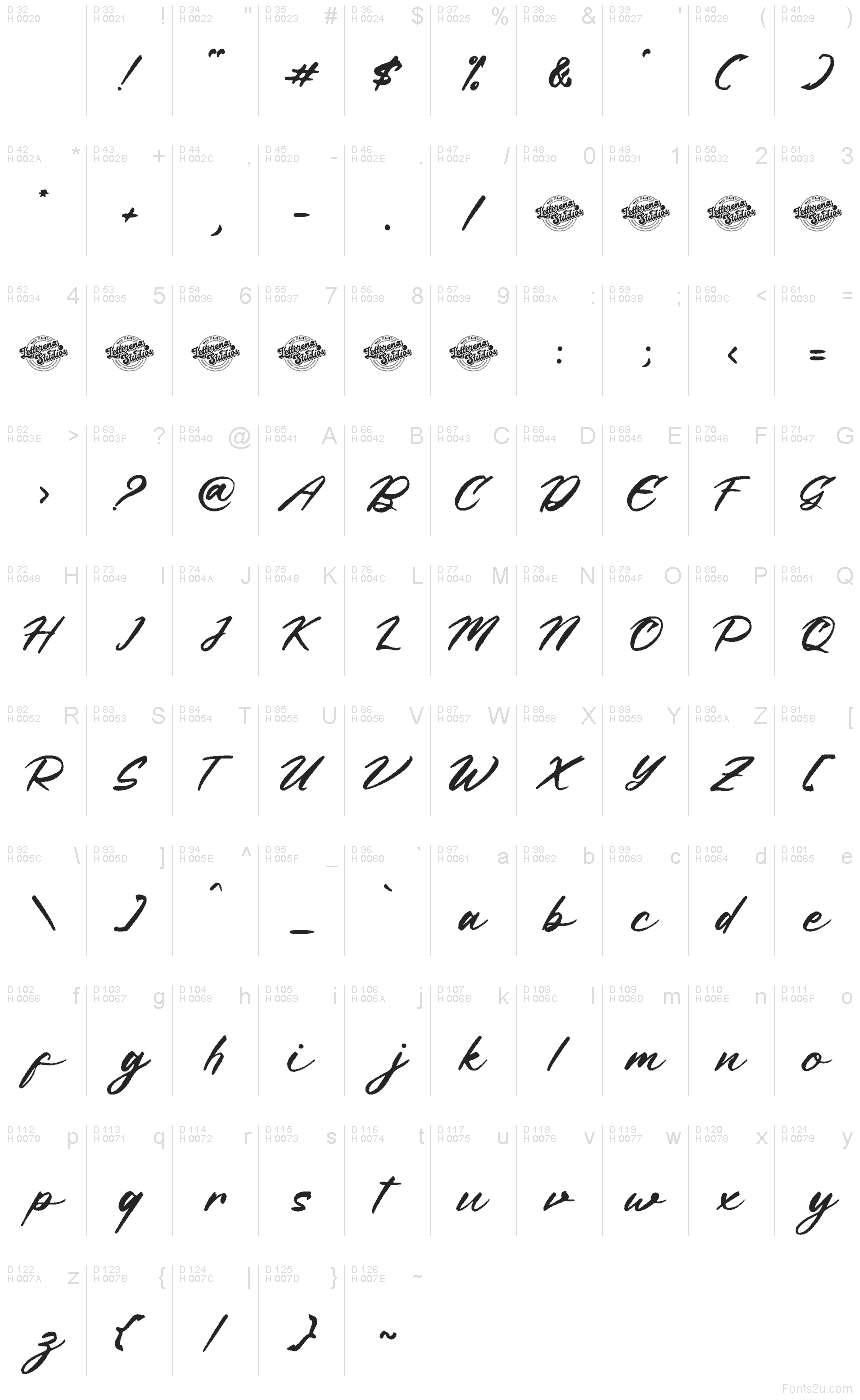
Begatory DEMO VERSION
Begatory font by Letterena Studios is a free handwritten script with a signature-like style. Its design is characterized by elegance, flowing letters, and an expressive attitude that does not overwhelm but rather comforts and warms. The author obviously sought to come up with a human touch, visible through the natural aspect and its personal curves.
The font should be popular in various uses including branding, logo design, postcards, invitations, posters titles, quote designs for social media platforms (Instagram feed & stories), ads designs on Facebook or Pattreon squads presenting artworks or other products direct sales promotions materials…